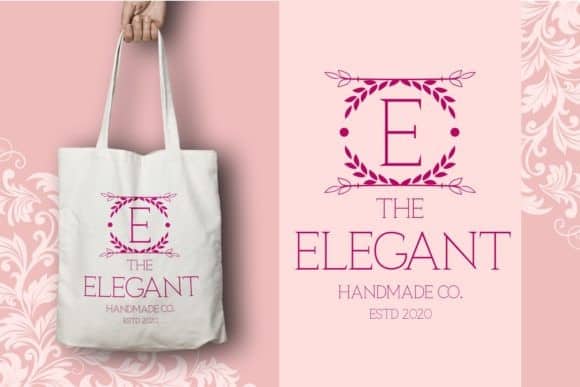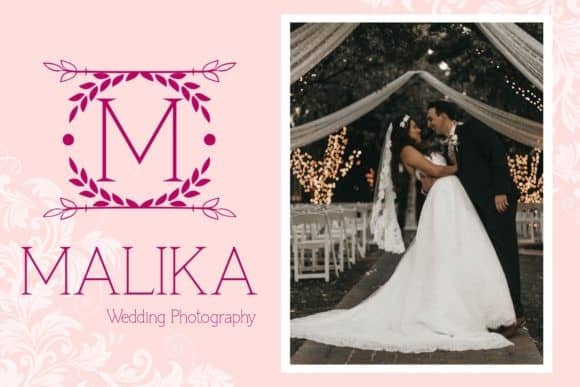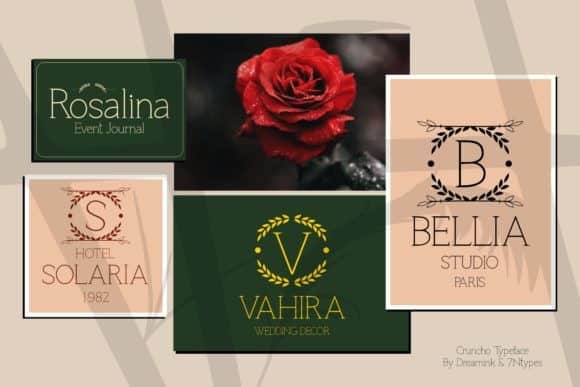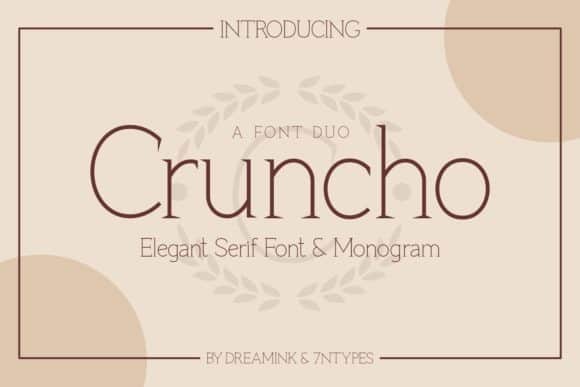
Cruncho Serif Font is a strong and wide serif font with a bit of technology and scifi theme. It’s designed and shared by 7NTypes. It’s an elegant serif typeface. Suitable to a wide variety of designs due to its neat and simple style, Cruncho has the potential to become your favorite go-to font, no matter the occasion!